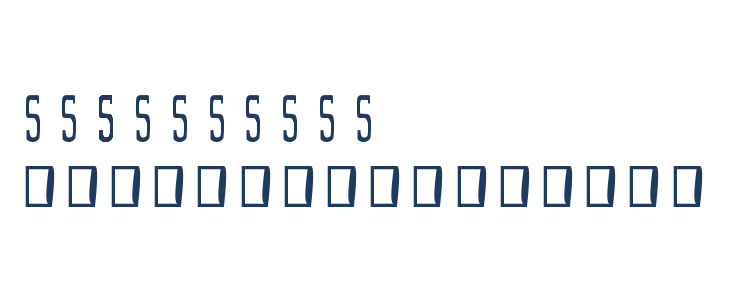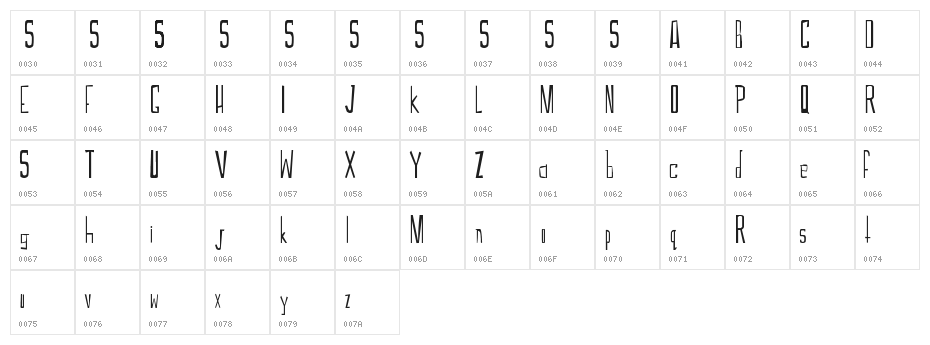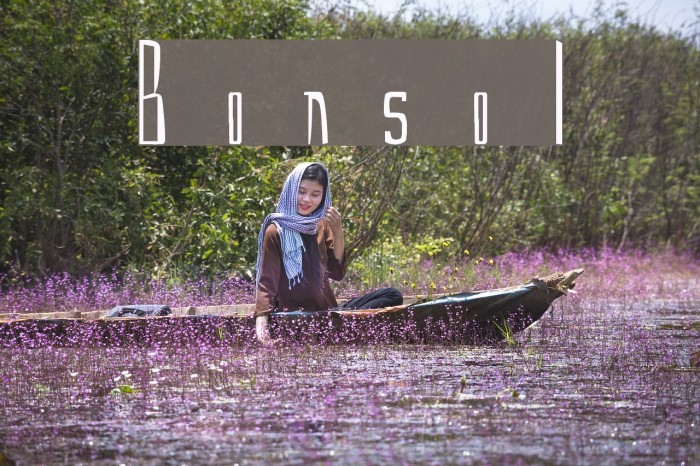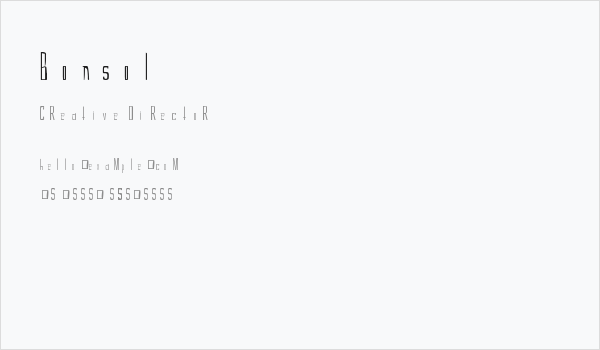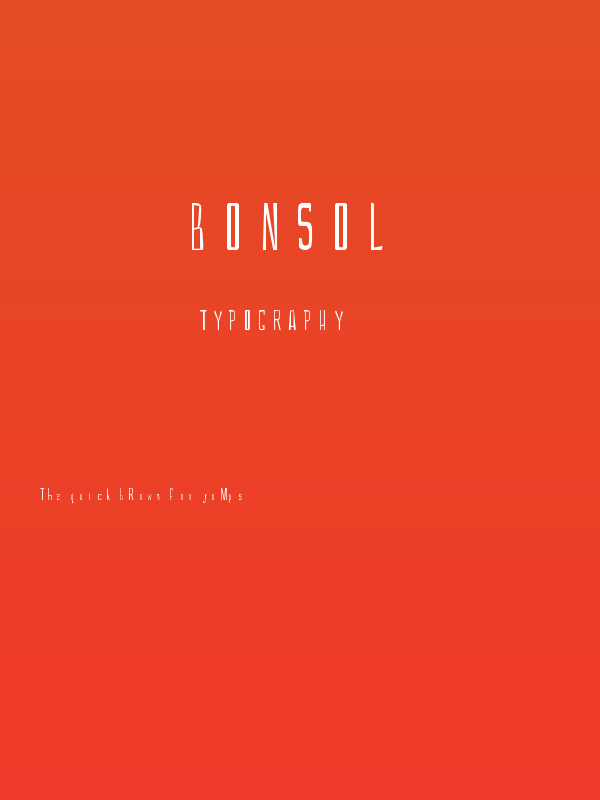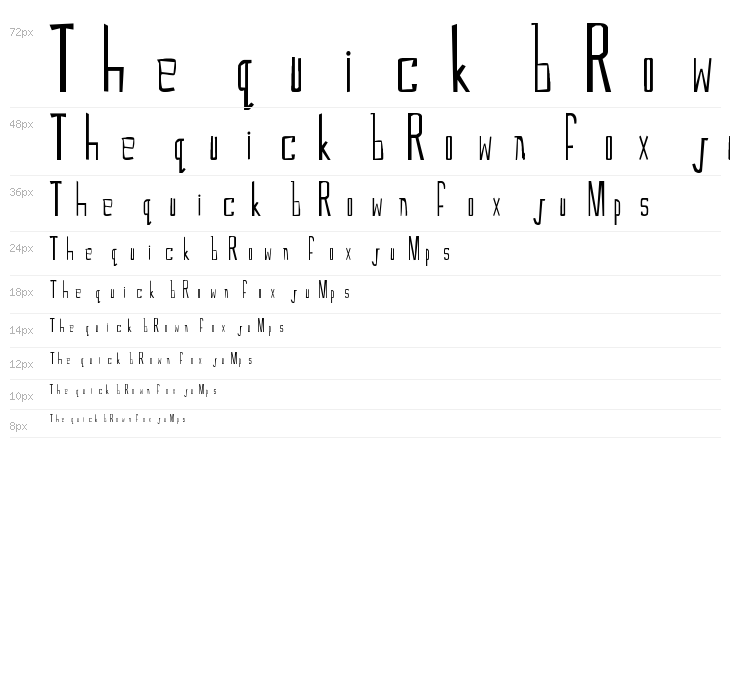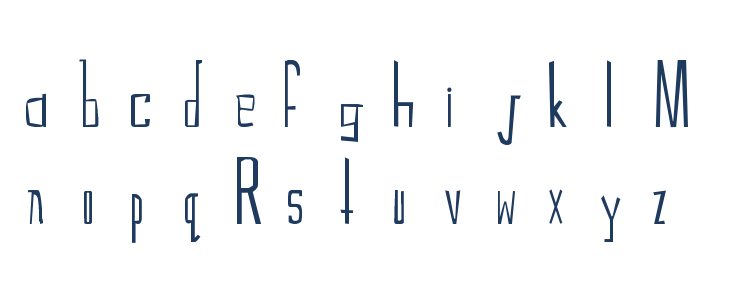
Bonsol Font
Bonsol Description
This font features a unique, modern design with a geometric and slightly condensed structure. The uppercase letters are tall and narrow, with distinct angular cuts that give them a futuristic appearance. The lowercase letters maintain a similar style, with a consistent height and clean lines. The numbers are bold and match the overall aesthetic, making them easily readable. Special characters are designed to complement the alphabet, maintaining the geometric theme. This font's distinct style makes it suitable for projects that require a modern and edgy look.